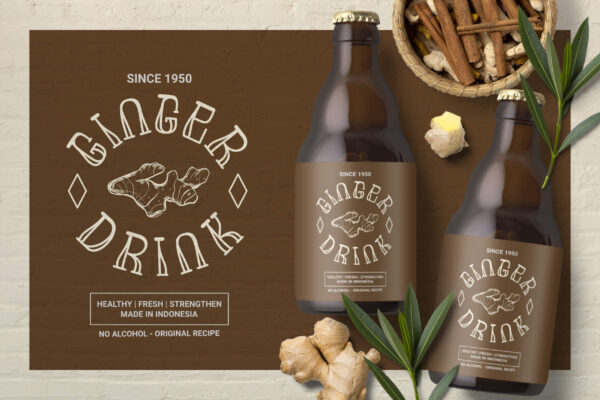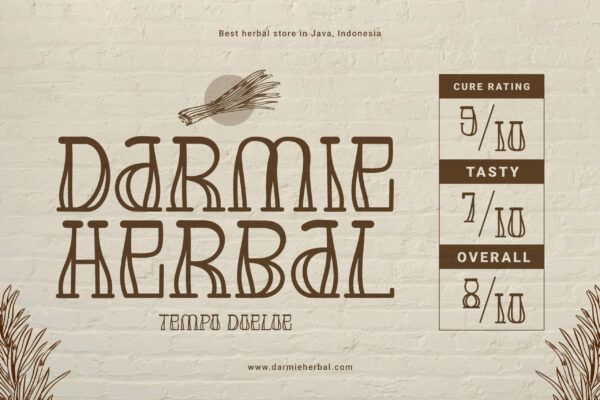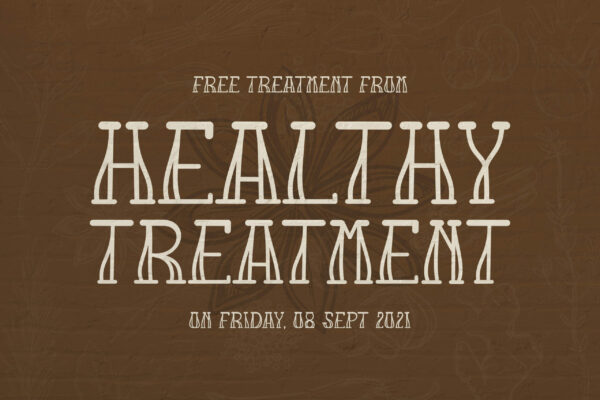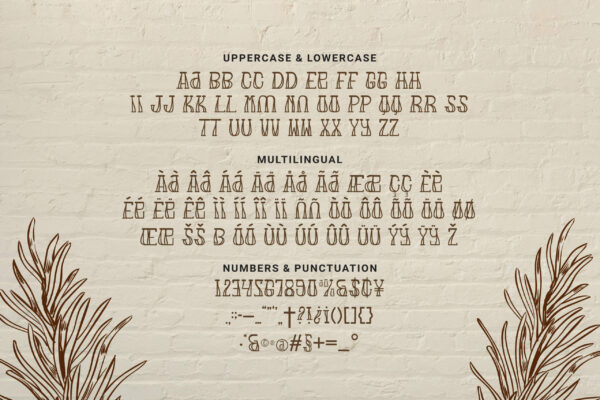
Jamue is a unique display font that blends tradition with modern character. Drawing inspiration from herbal and vintage packaging design, Jamue features distinctive strokes, quirky terminals, and an organic rhythm that adds charm to any branding or label design. Its upright yet flowing form gives off a handcrafted, natural aesthetic. Perfect for herbal products, artisan goods, and nostalgic-themed projects.
Equipped with uppercase and lowercase letters, multilingual characters, punctuation, and numerals, Jamue is highly usable while maintaining its decorative identity. Whether you’re designing labels for herbal drinks, old-style logos, or rustic signage, Jamue will infuse your visuals with an earthy, vintage flair and a culturally rooted touch.
Jamue